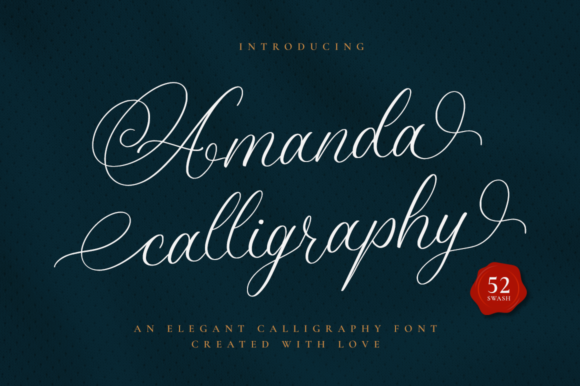
Amanda Calligraphy Font: Elevate Your Designs with Elegance
In the world of typography, calligraphy fonts have always been a favorite among designers, adding a touch of elegance and sophistication to any project. One such font that has been making waves in the design community is Amanda Calligraphy. This ravishing handwritten font is masterfully designed to become a true favorite, maintaining its classy calligraphic influences while feeling contemporary and fresh.
The Story Behind Amanda Calligraphy
Amanda Calligraphy is a meticulously crafted font that boasts a unique blend of traditional calligraphy and modern flair. Its creator, with a keen eye for detail, has poured their heart and soul into designing a font that is not only aesthetically pleasing but also highly versatile. Whether you’re working on a branding project, wedding invitation, or social media graphics, Amanda Calligraphy is sure to make a lasting impression.
Key Features of Amanda Calligraphy
- Handwritten with a Touch of Class: This font exudes elegance and sophistication, making it perfect for projects that require a high level of refinement.
- Contemporary and Fresh: Despite its calligraphic roots, Amanda Calligraphy feels modern and fresh, ensuring your designs stay current and on-trend.
- Highly Versatile: From logos and branding to invitations and social media graphics, this font can be used in a wide range of applications.
Why Choose Amanda Calligraphy?
With so many fonts available, it’s hard to choose just one. However, Amanda Calligraphy stands out from the crowd for several reasons:
- Unique Style: Amanda Calligraphy boasts a distinctive style that will set your designs apart from the rest.
How to Use Amanda Calligraphy
Using Amanda Calligraphy is straightforward, even if you’re not a seasoned designer. Here are some tips to get you started:
- Pair it with Other Fonts: Combine Amanda Calligraphy with other fonts to create visually appealing contrast and add depth to your designs.
- Experiment with Colors: Try out different colors and textures to see how they interact with the font and enhance your design.
- Play with Swashes: Take advantage of the font’s swashes to add a touch of elegance and sophistication to your designs.
Design Inspiration with Amanda Calligraphy
To give you a better idea of what you can create with Amanda Calligraphy, here are some design ideas to get you started:
- Wedding Invitations: Create beautiful, one-of-a-kind wedding invitations that set the tone for the big day.
- Branding and Logos: Use Amanda Calligraphy to create a stunning logo or brand identity that reflects your business’s values and personality.
- Social Media Graphics: Elevate your social media presence with eye-catching graphics that showcase your brand’s style and flair.
Amanda Calligraphy is a versatile and elegant font that can elevate any design project. Its unique blend of traditional calligraphy and modern flair makes it a standout choice among designers. With its PUA encoding, ease of use, and highly versatile nature, Amanda Calligraphy is sure to become a favorite in your design arsenal.